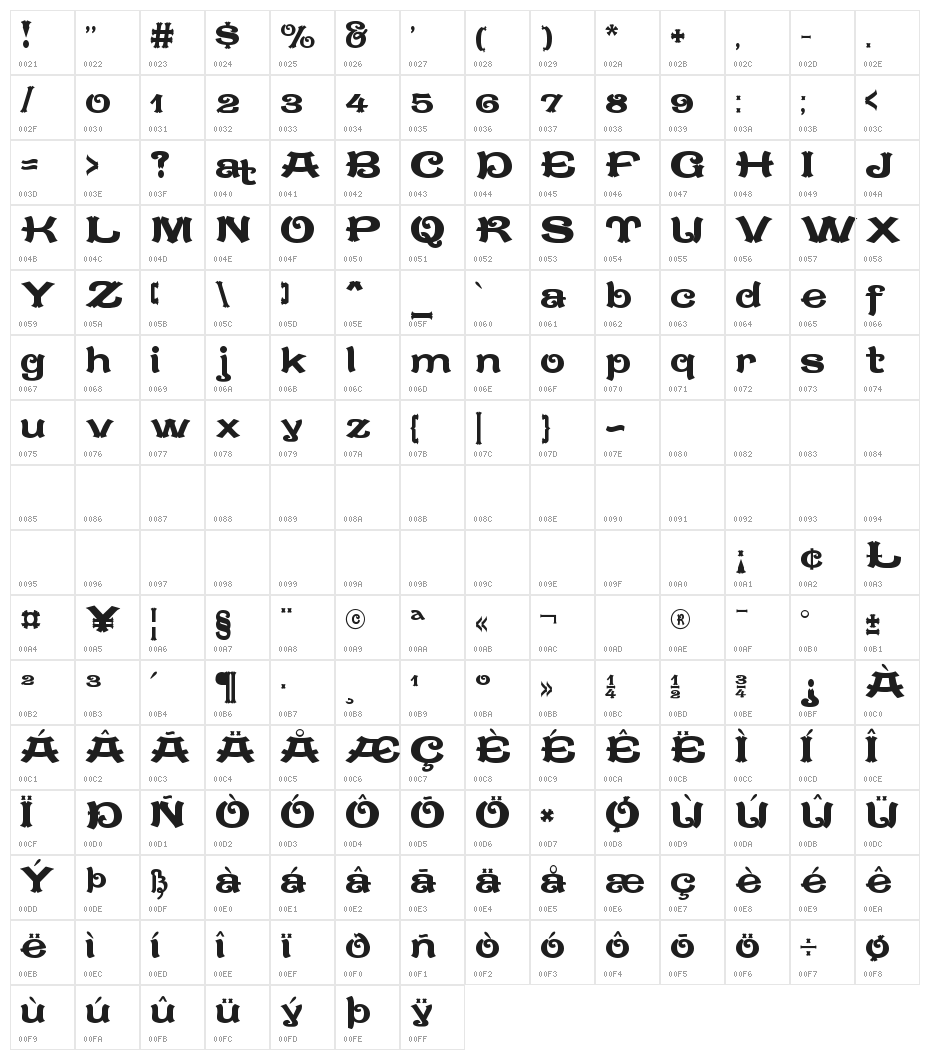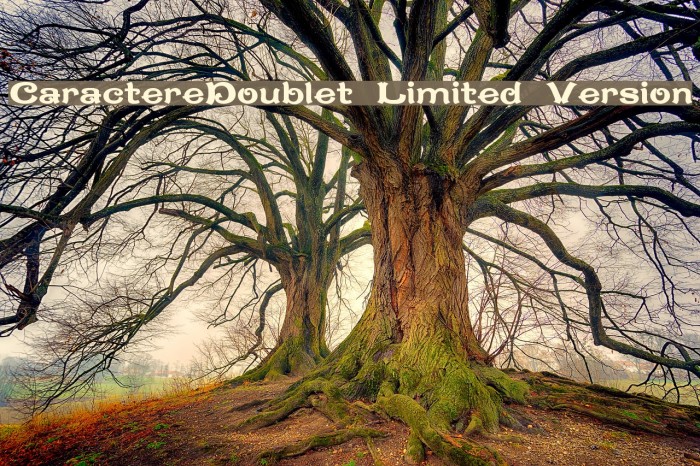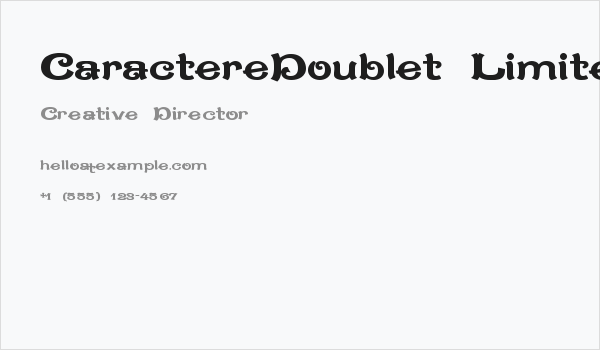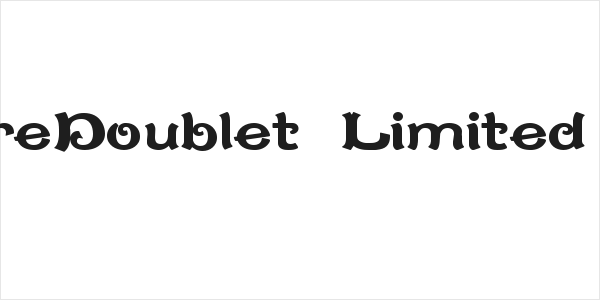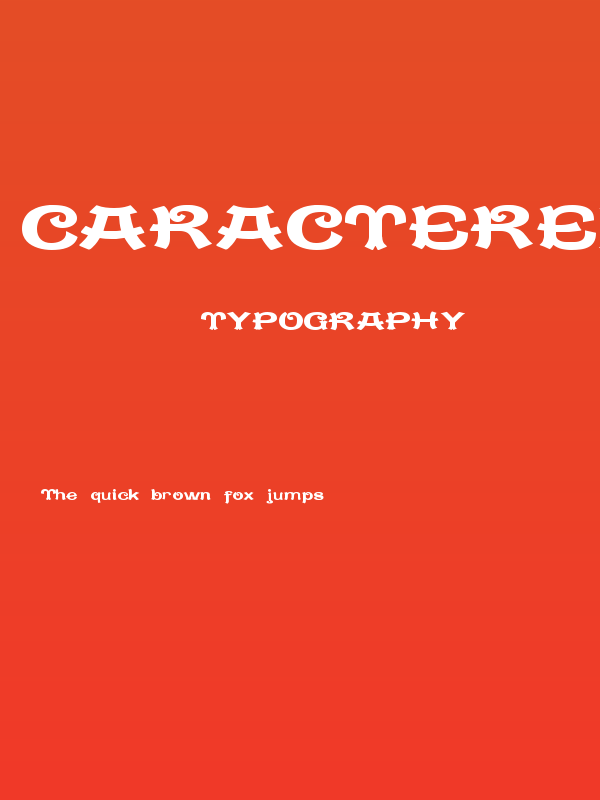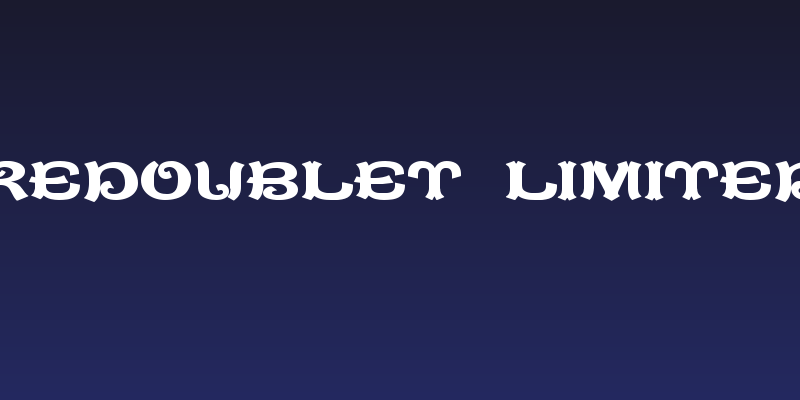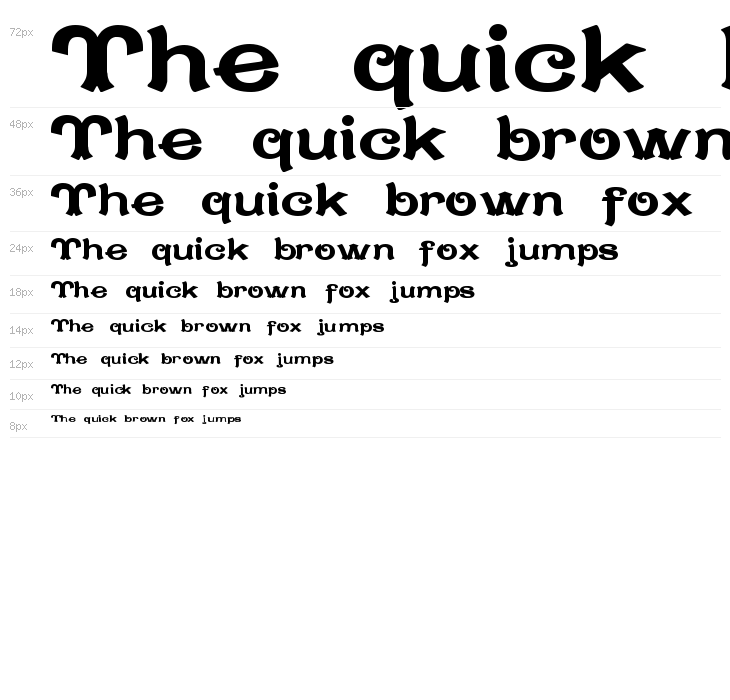
CaractereDoublet Limited Version Font
CaractereDoublet Limited Version Description
This font features a bold and decorative style, characterized by its thick, dramatic strokes and unique, artistic flair. The letters have a playful yet gothic appearance, with exaggerated serifs and a slightly medieval touch. The uppercase and lowercase letters maintain a consistent design, with rounded edges and a sense of movement that adds to its dynamic look. The numerals and special characters follow the same aesthetic, ensuring a cohesive appearance across all glyphs. This font is ideal for making a strong visual impact, suitable for creative and bold design projects.